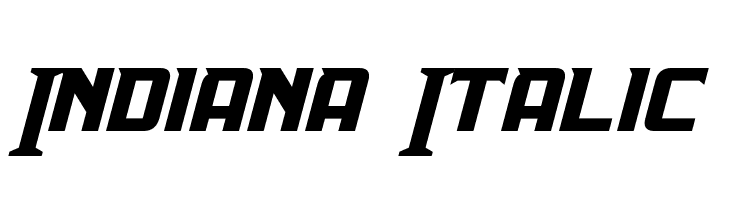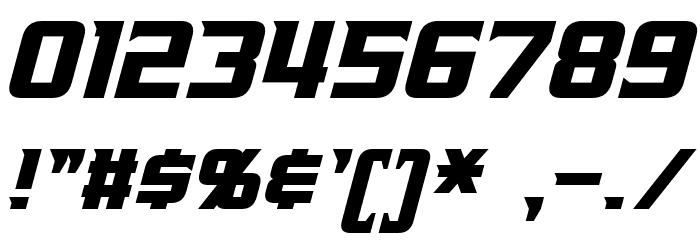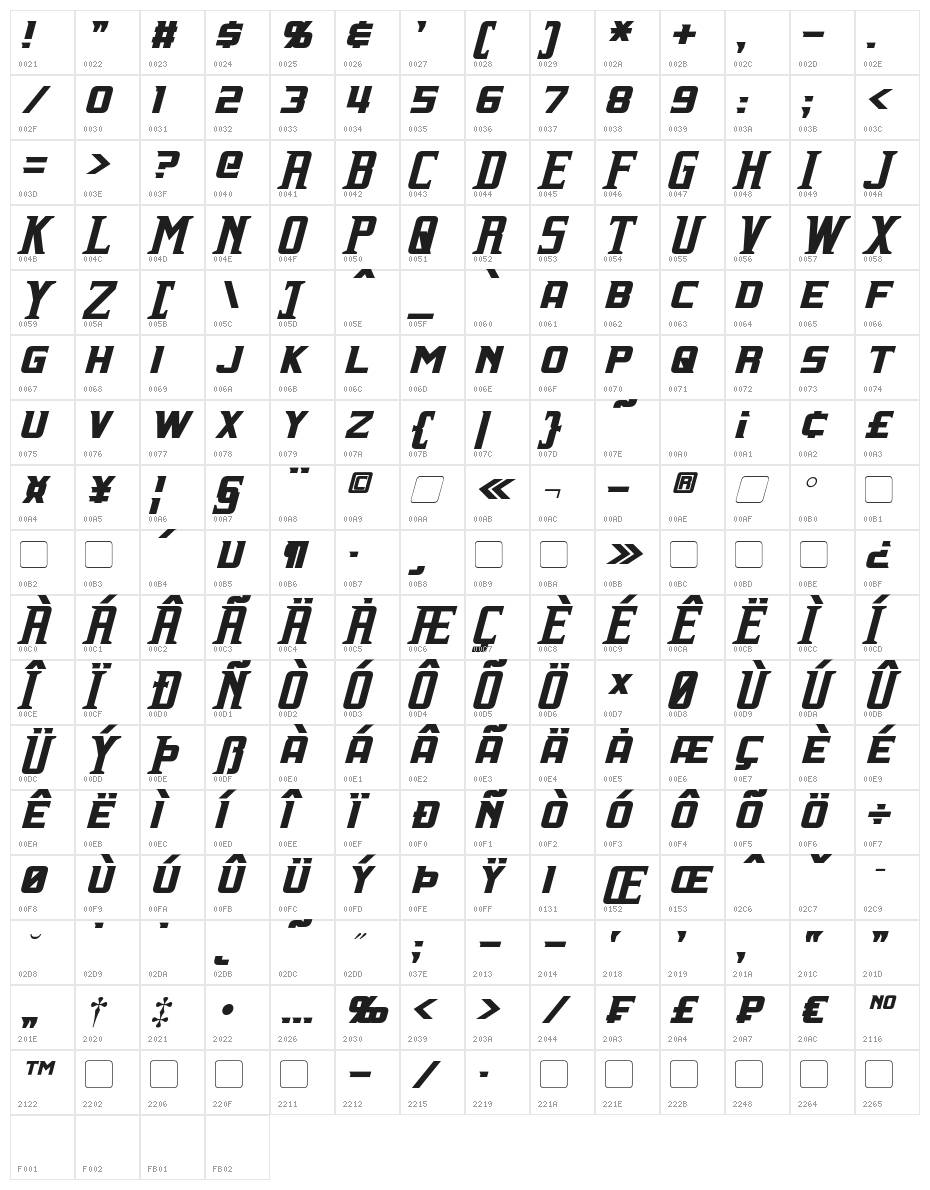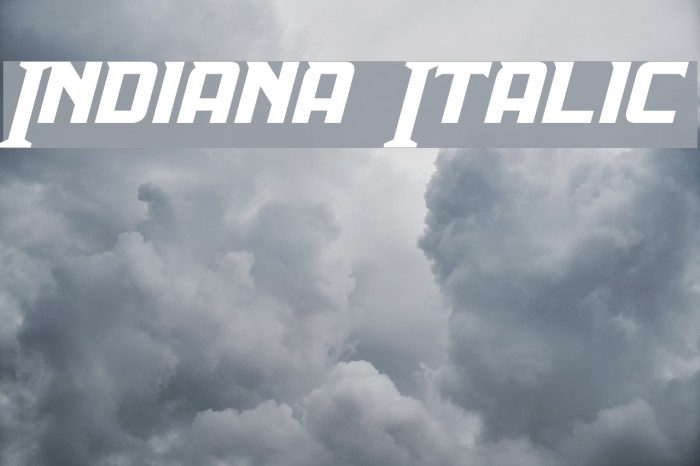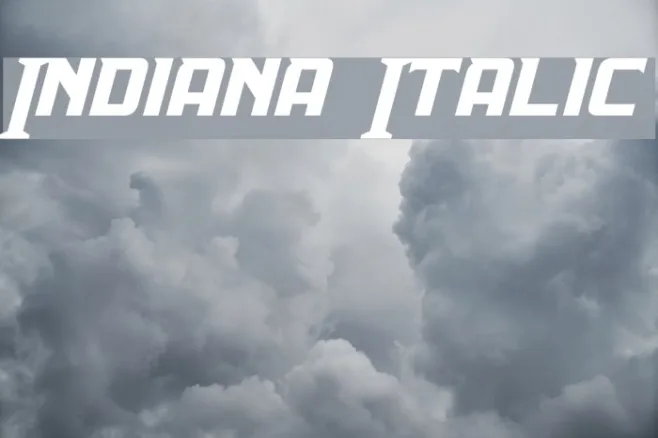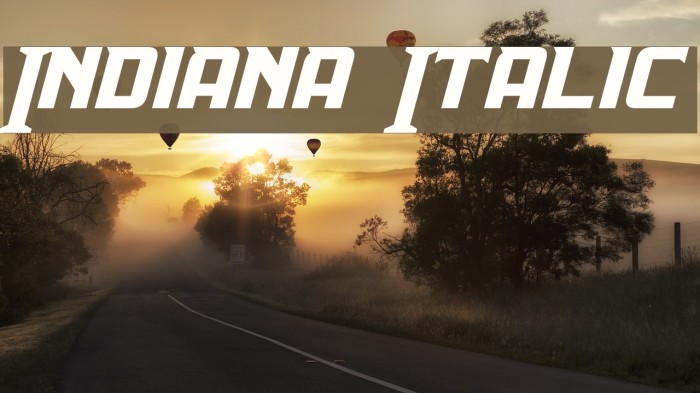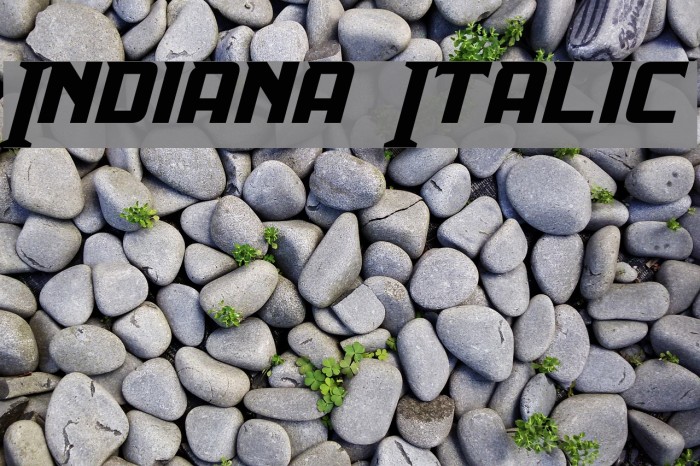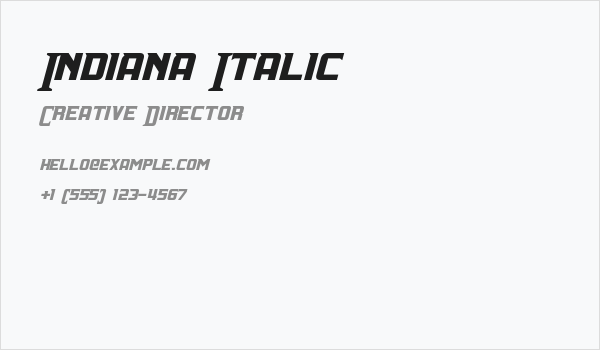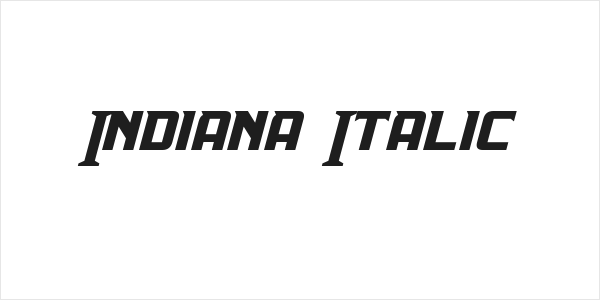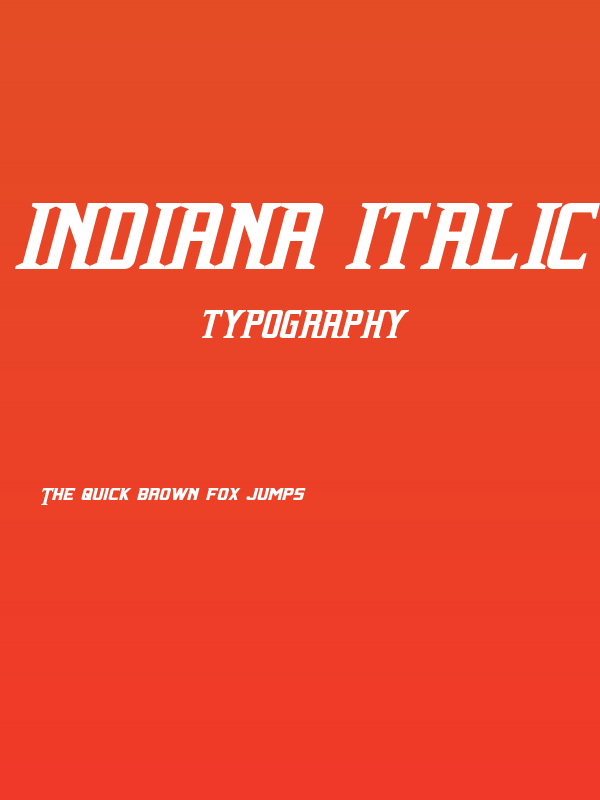
Indiana Italic Font
Indiana Italic Description
This font features a bold and dynamic italic style, characterized by its strong geometric shapes and sharp angles. The letters are slightly slanted, giving a sense of movement and energy. The uppercase and lowercase characters maintain a consistent style, with a uniform stroke width that adds to its bold appearance. The numerals are designed to match the letterforms, ensuring a cohesive look across all characters. Special characters are included, maintaining the same bold and angular design. This font is well-suited for projects that require a strong and impactful visual presence.